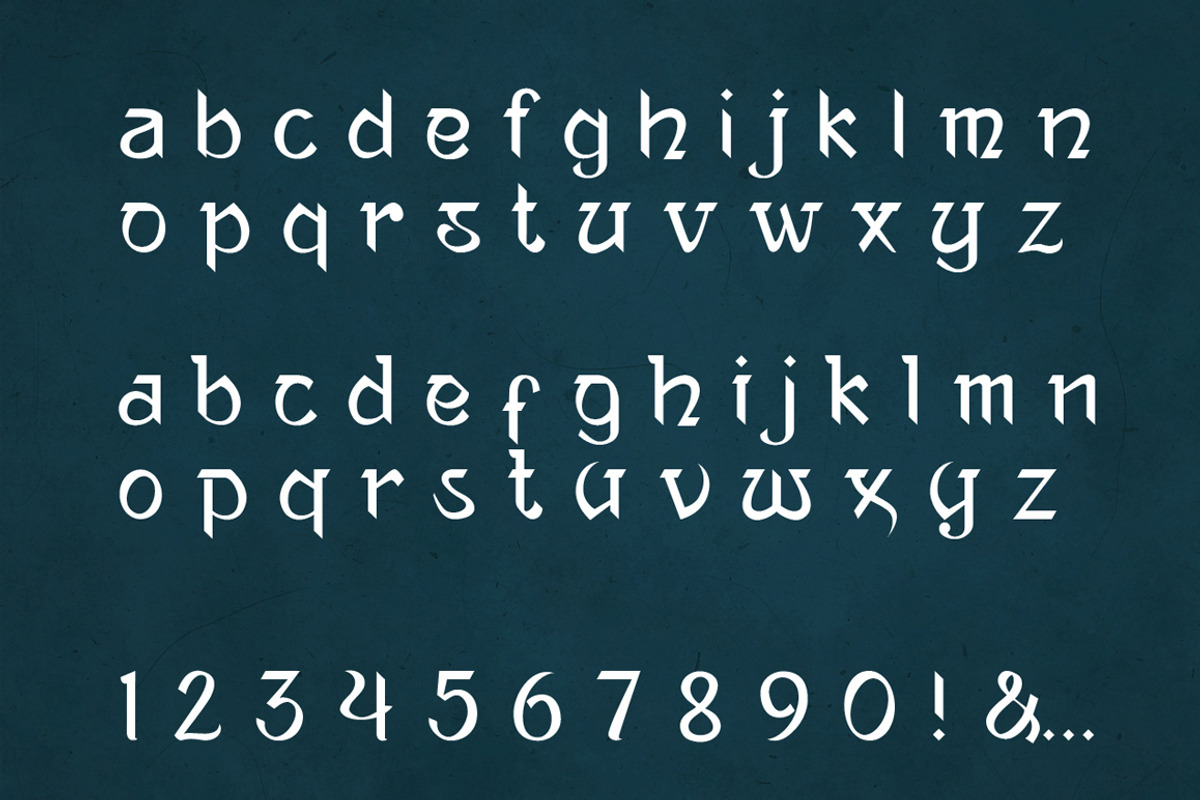
Ananda Neptouch 2
Ananda Neptouch 2 is 2nd verson of Neptouch font, It's Devanagari Sanskrit inspired font based on calligraphic styles of Devanagari.